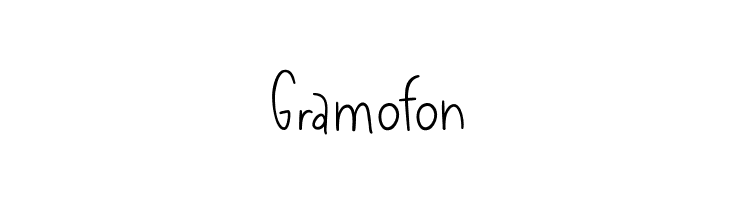
( Fonts by Afkari Studio )
A playful, handwritten font with tall, narrow letters and a whimsical style.
A playful, casual handwritten font with smooth, flowing lines.
( Dominique Demetz )
A playful, handwritten script font with bold uppercase and fluid lowercase letters.
A bold, expressive script font with elegant, flowing cursive letters.
( Fonts by David Kerkhoff - www.hanodedphotography.com )
A runic-inspired font with bold, angular, and geometric shapes.
A bold, vintage-style font with sharp, angular edges and high contrast.
( Scott Simpson )
A sleek, modern italic font with thin, elongated characters.
( Scott Simpson )
A sleek, minimalistic font with thin, elongated characters for a modern look.
A bold, modern font with a geometric structure and strong visual impact.
( Tungus studio - Adam Josefus - www.tungus.cz )
A playful, handwritten font with a whimsical and casual style.